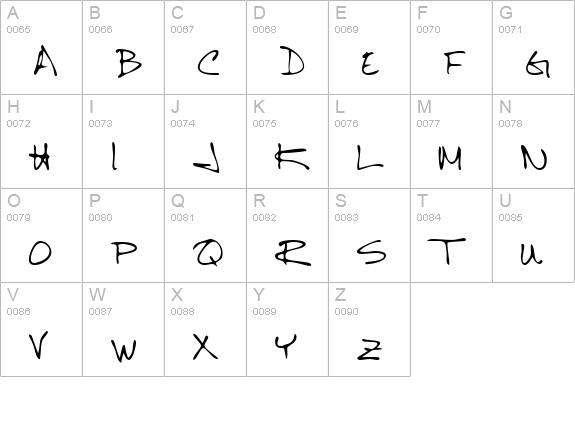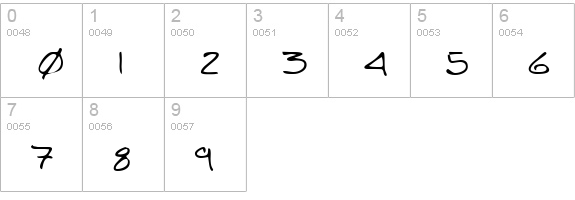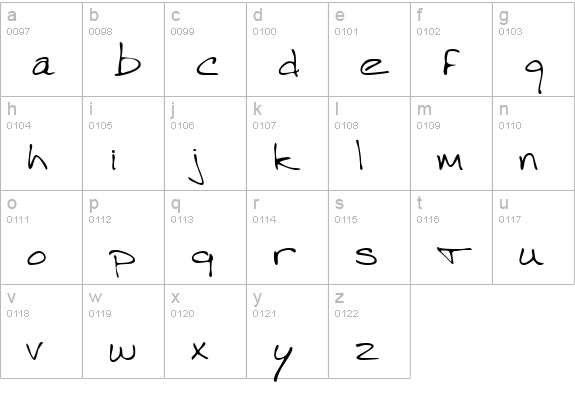
StanleysHand Regular Font Details
StanleysHand Regular is the standard, neutral variant in the StanleysHand typeface family \xE2\x80\x94 well suited to general body text, paragraphs, and standard typographic work.
StanleysHand Regular is a charming and versatile font that effortlessly captures the essence of handwriting. With its smooth curves and natural flow, this font brings a warm and personal touch to any project. Whether you're designing a greeting card, creating a logo, or simply adding a personal touch to your digital content, StanleysHand Regular is the perfect choice. This font exudes a sense of authenticity and individuality, as if it were handwritten with care and precision. Its slightly uneven strokes and subtle imperfections give it a unique and organic feel, making it stand out from other fonts on the market. What makes StanleysHand Regular even more appealing is that it is freely available to download at FontsMarket.com. Yes, you heard it right - this amazing font can be yours without any cost. FontsMarket.com is a trusted source for high-quality fonts, and they are offering StanleysHand Regular as a free download to enhance your design projects. Whether you're a professional designer or a casual user, this font will elevate your work to the next level. Its versatility allows it to be used in a wide range of applications, from print to digital, and its legibility ensures that your message will be conveyed with clarity and style. So why wait? Download StanleysHand Regular today from FontsMarket.com and give your designs the personal touch they deserve. With this font in your arsenal, you'll have the freedom to create stunning visuals that leave a lasting impression.